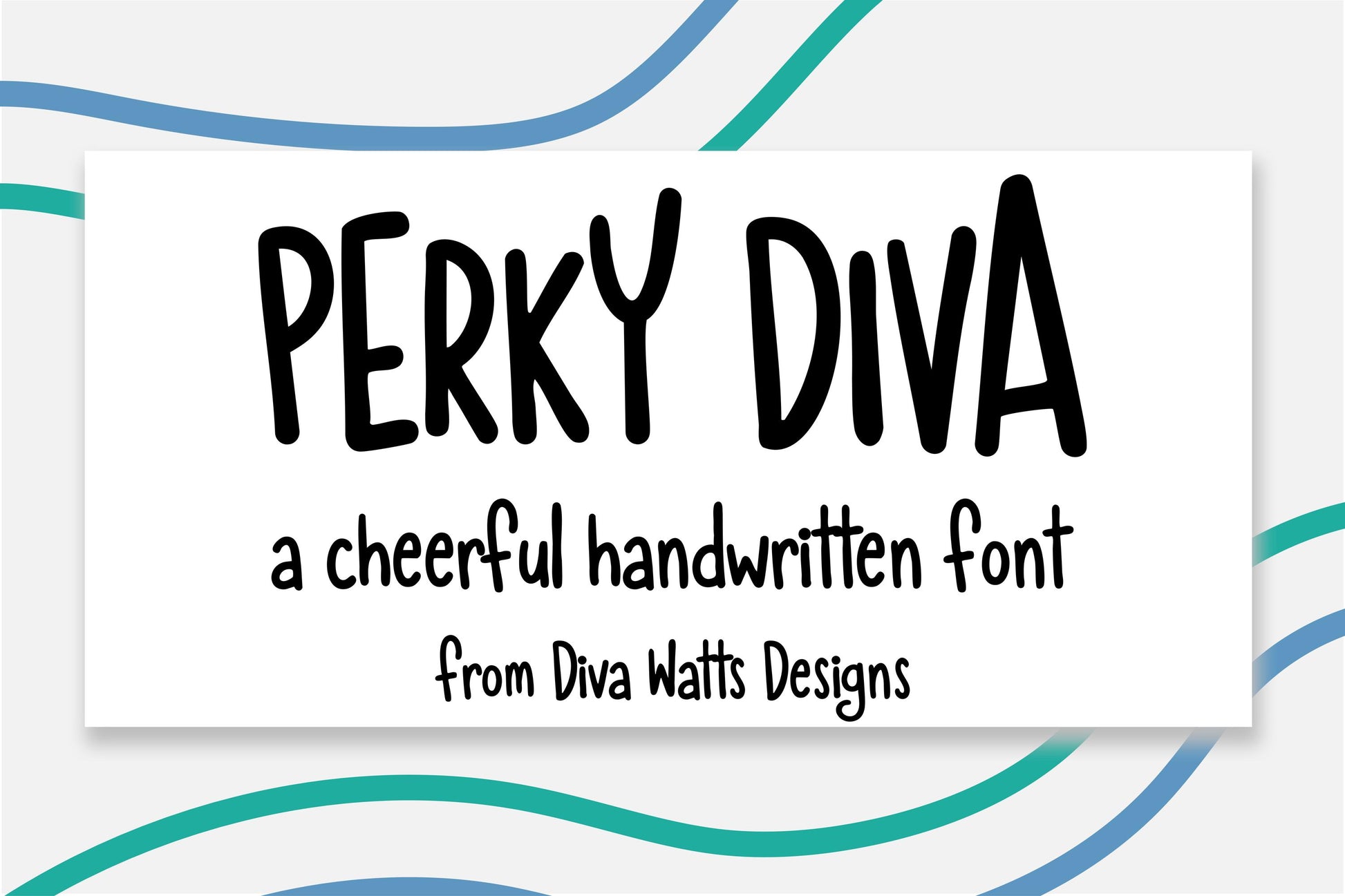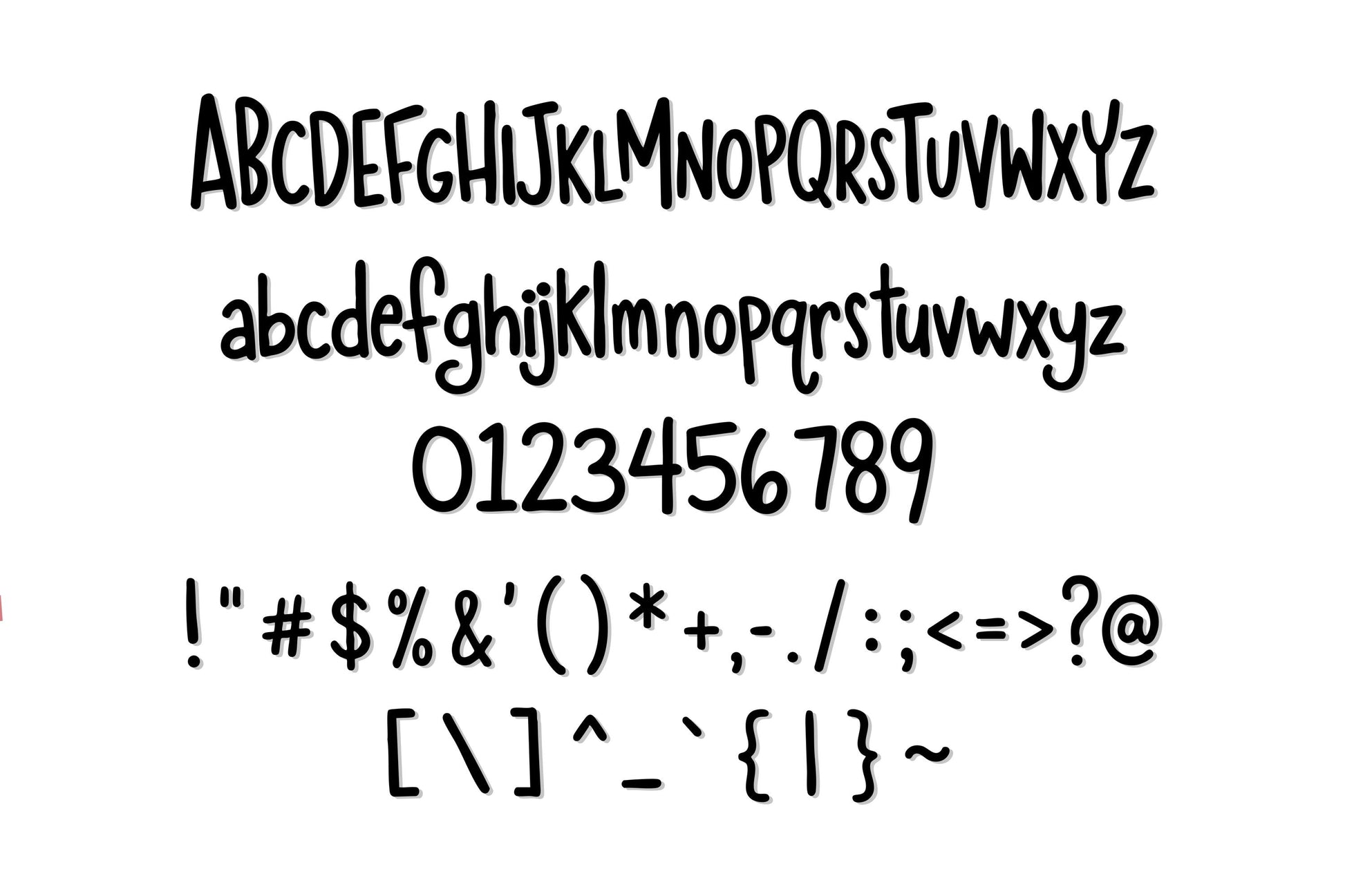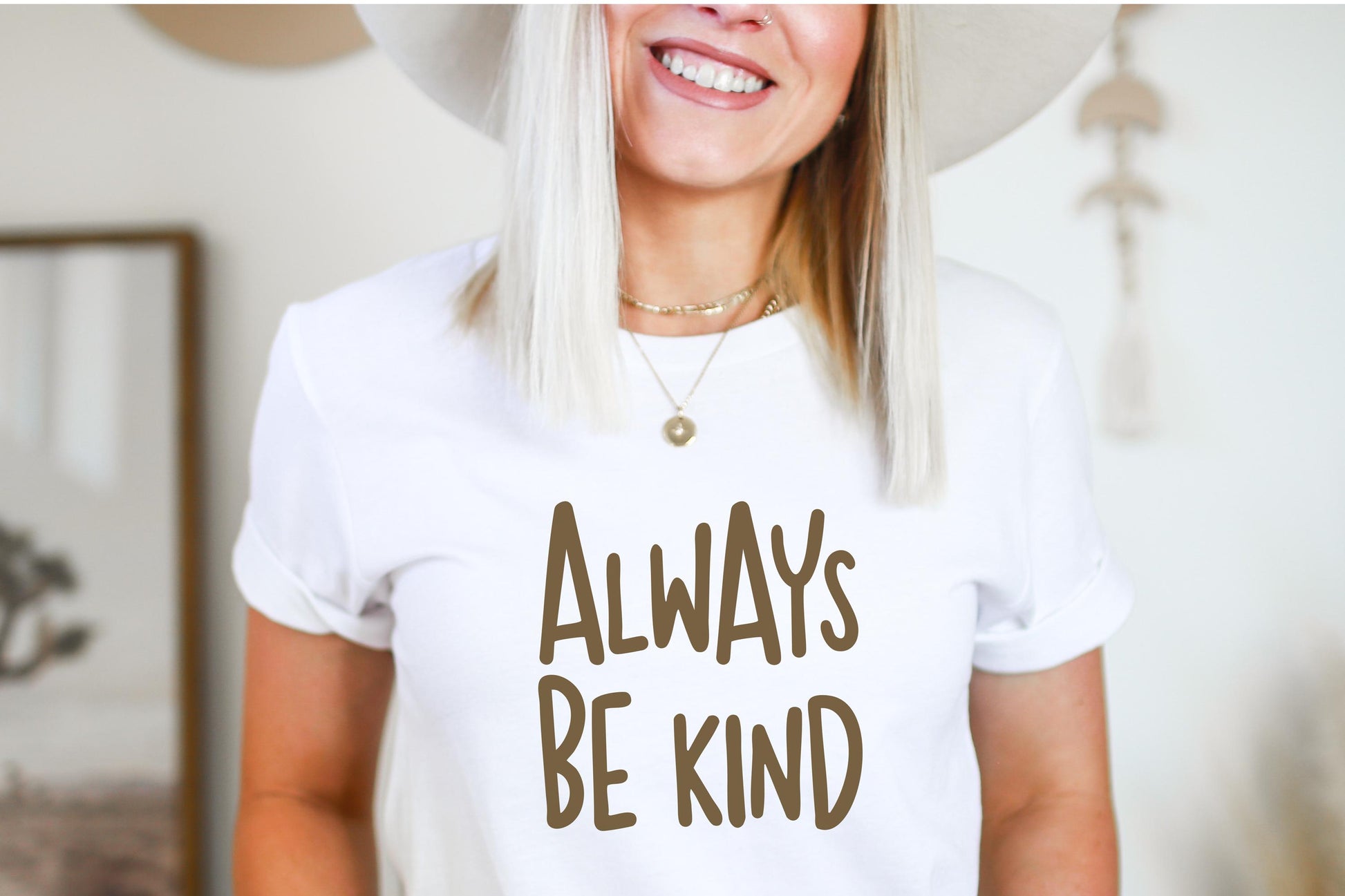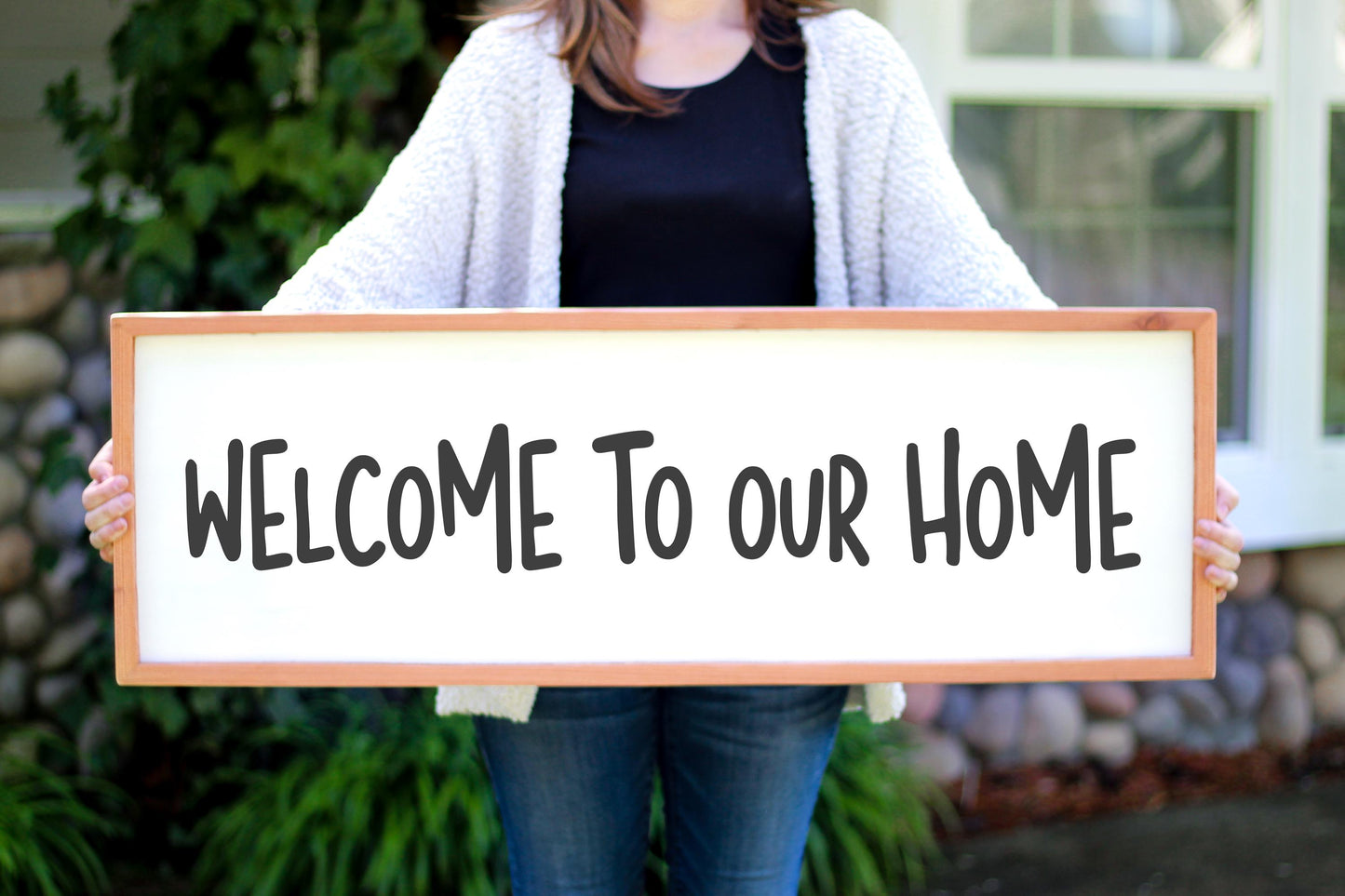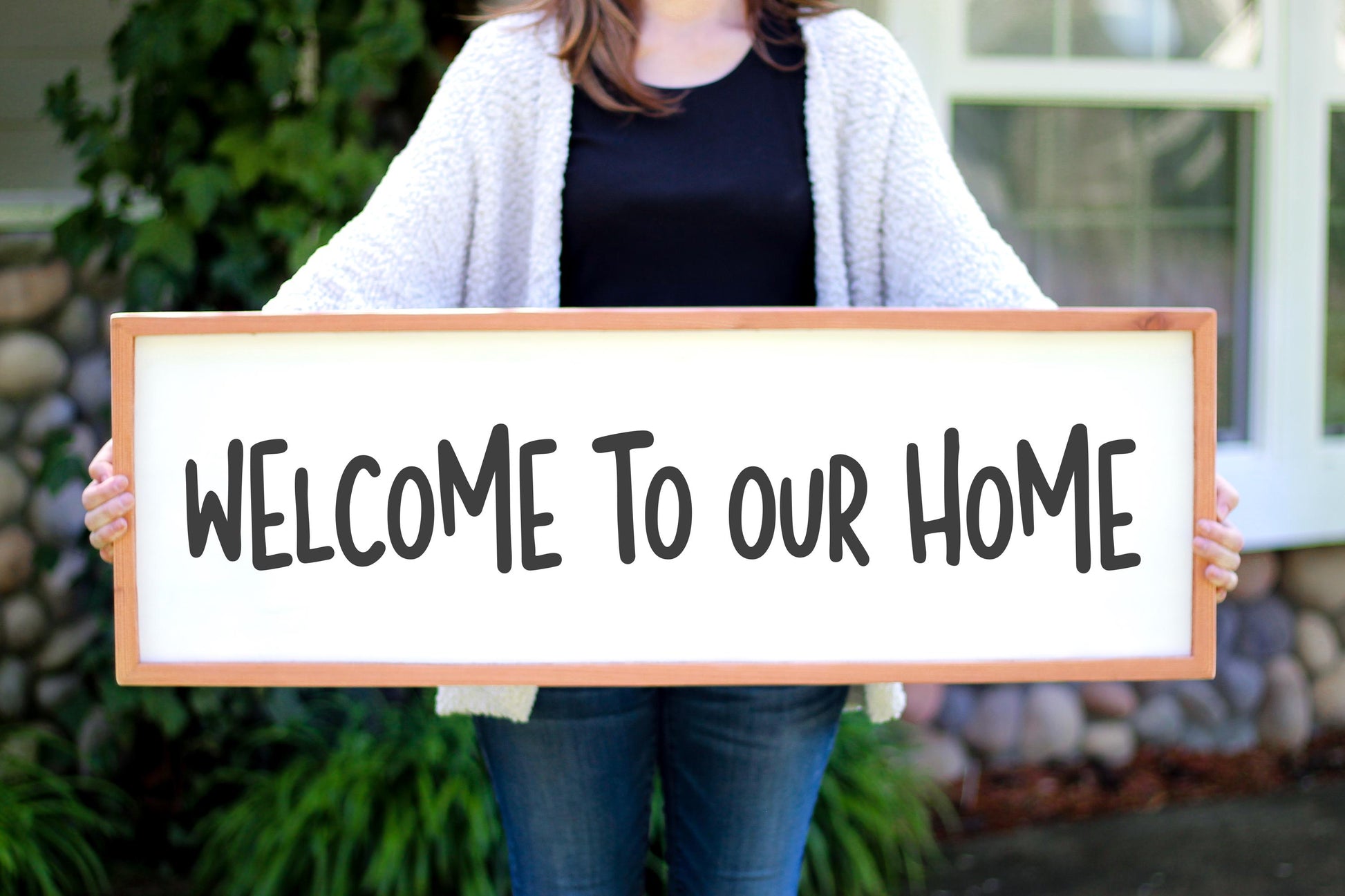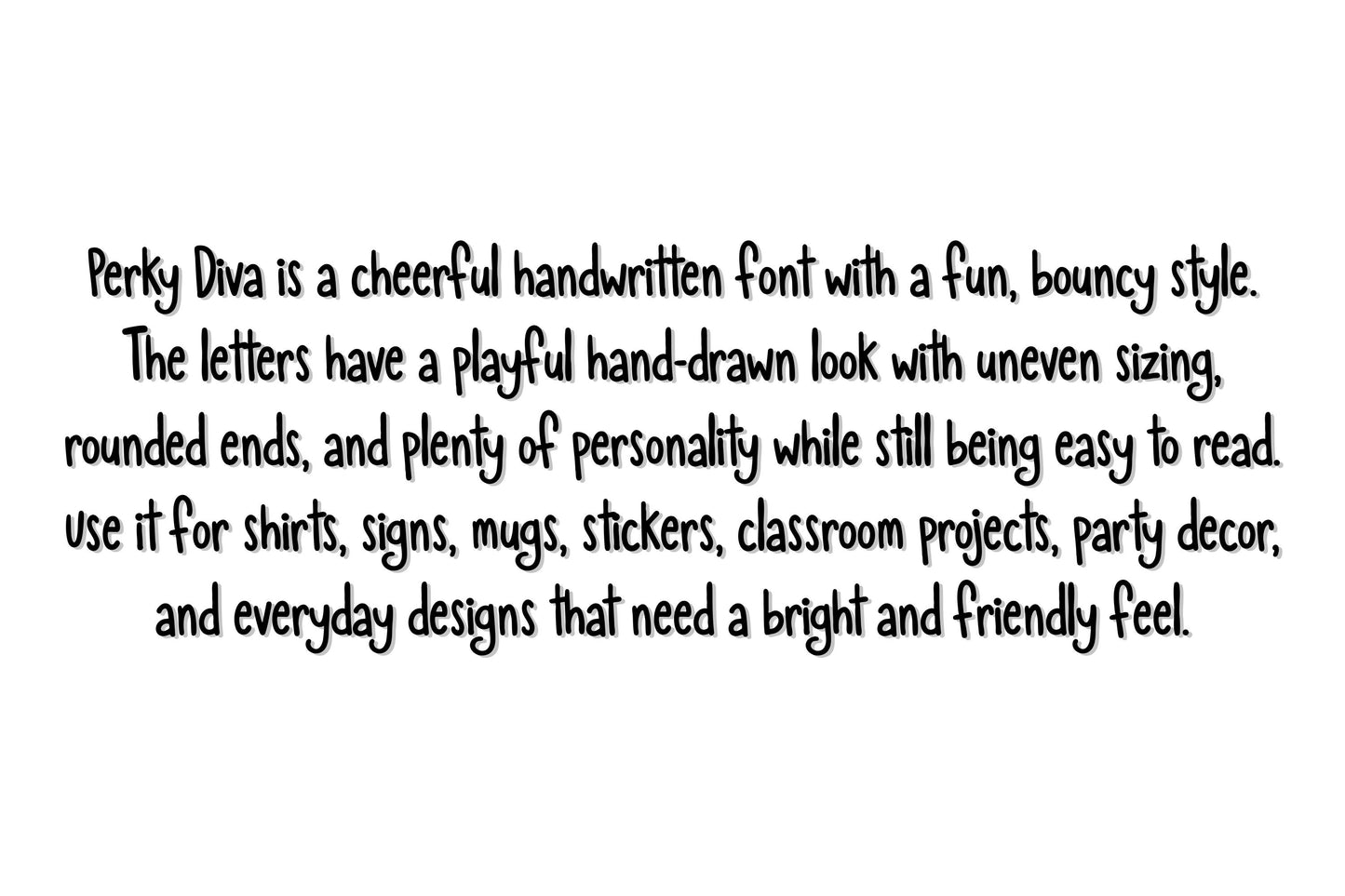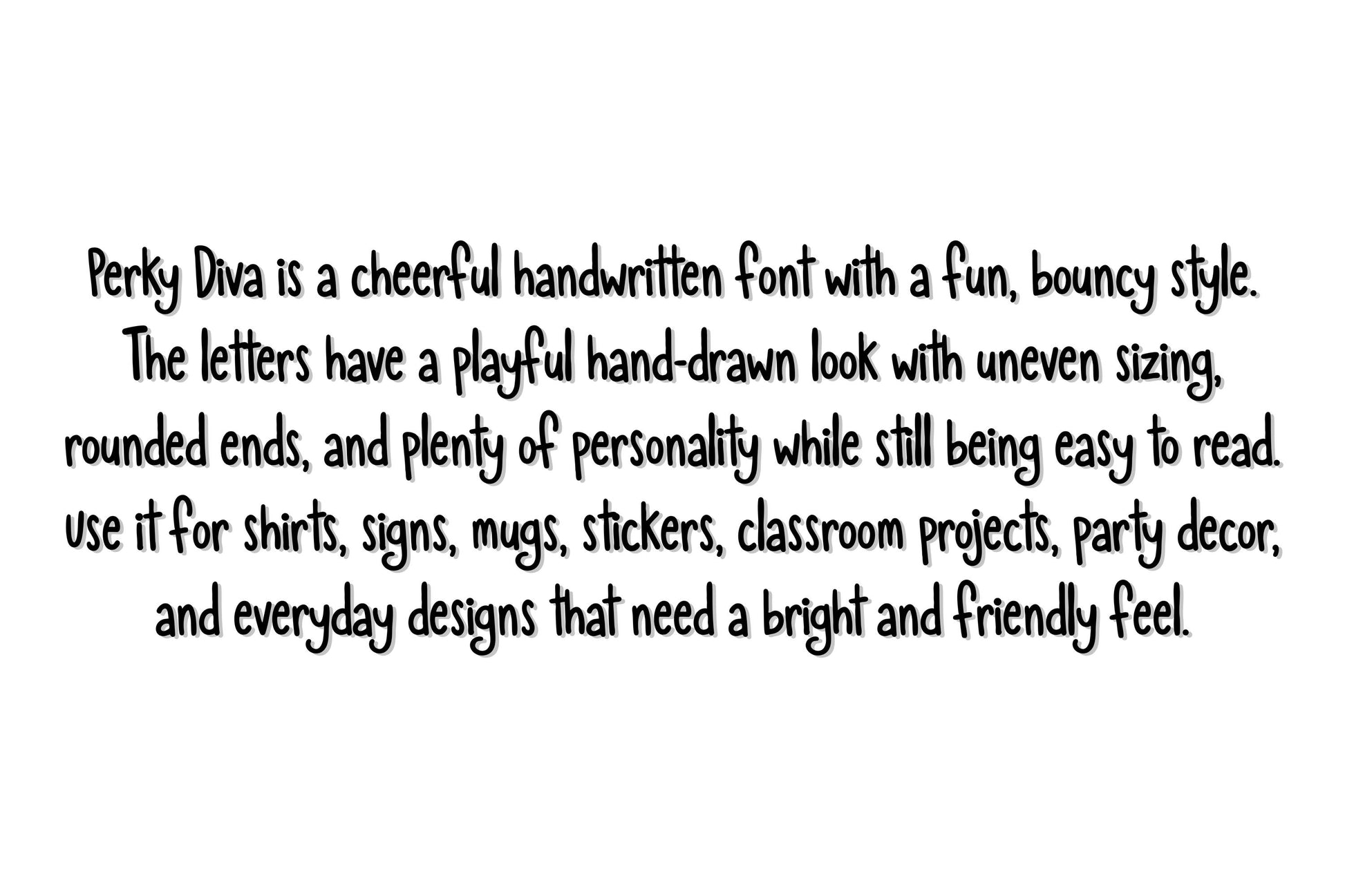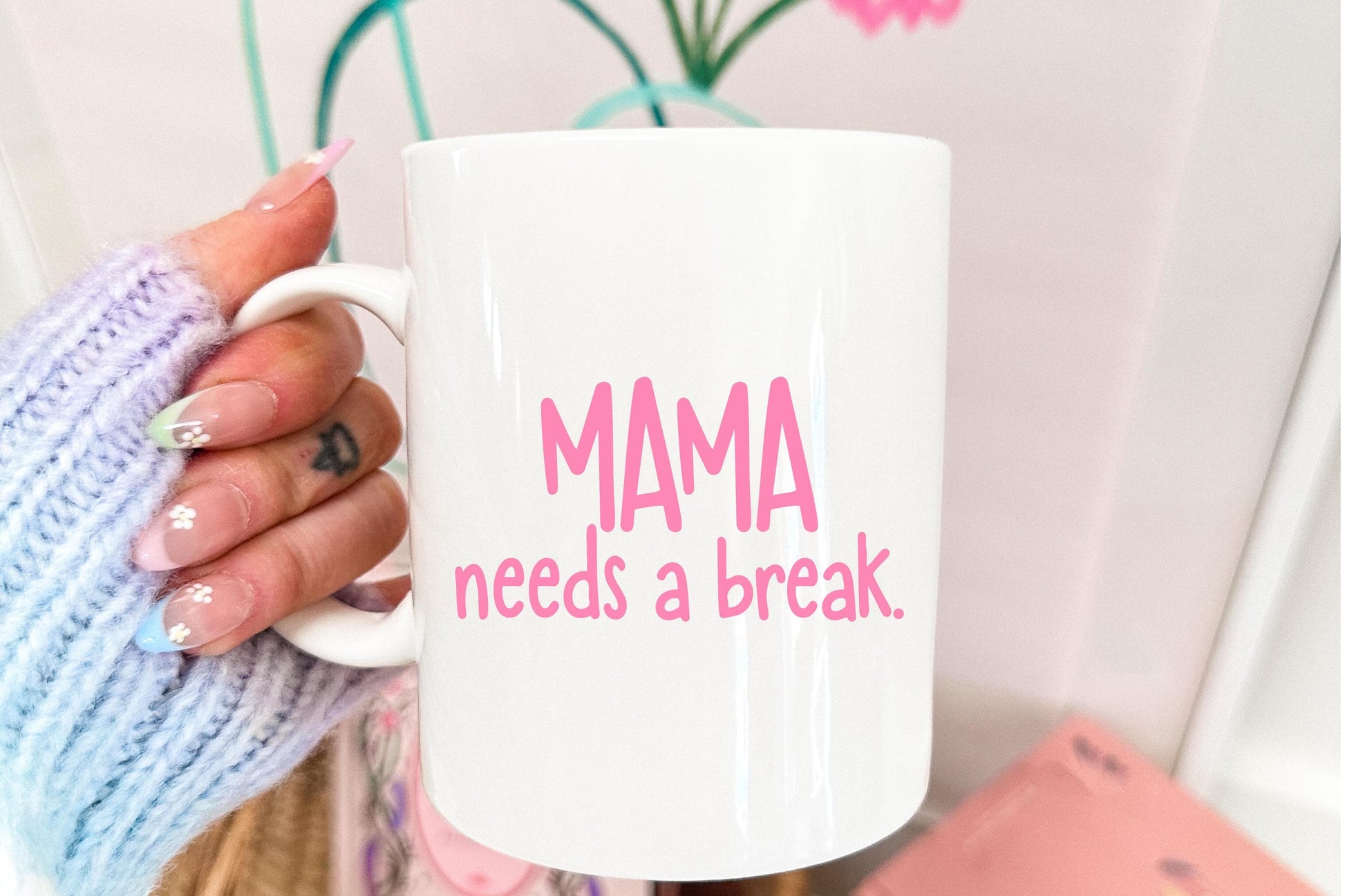
Handwritten Font Perky Diva Cheerful Hand Lettered OTF For Stickers, Labels, Signs, Cards, Invitations, And Personal Projects
Perky Diva is a cheerful handwritten font made for personal projects, printable designs, stickers, labels, signs, invitations, and cards that need playful polished lettering. This hand-lettered font gives your creative work a friendly, made-for-makers feel while staying easy to read and easy to use.